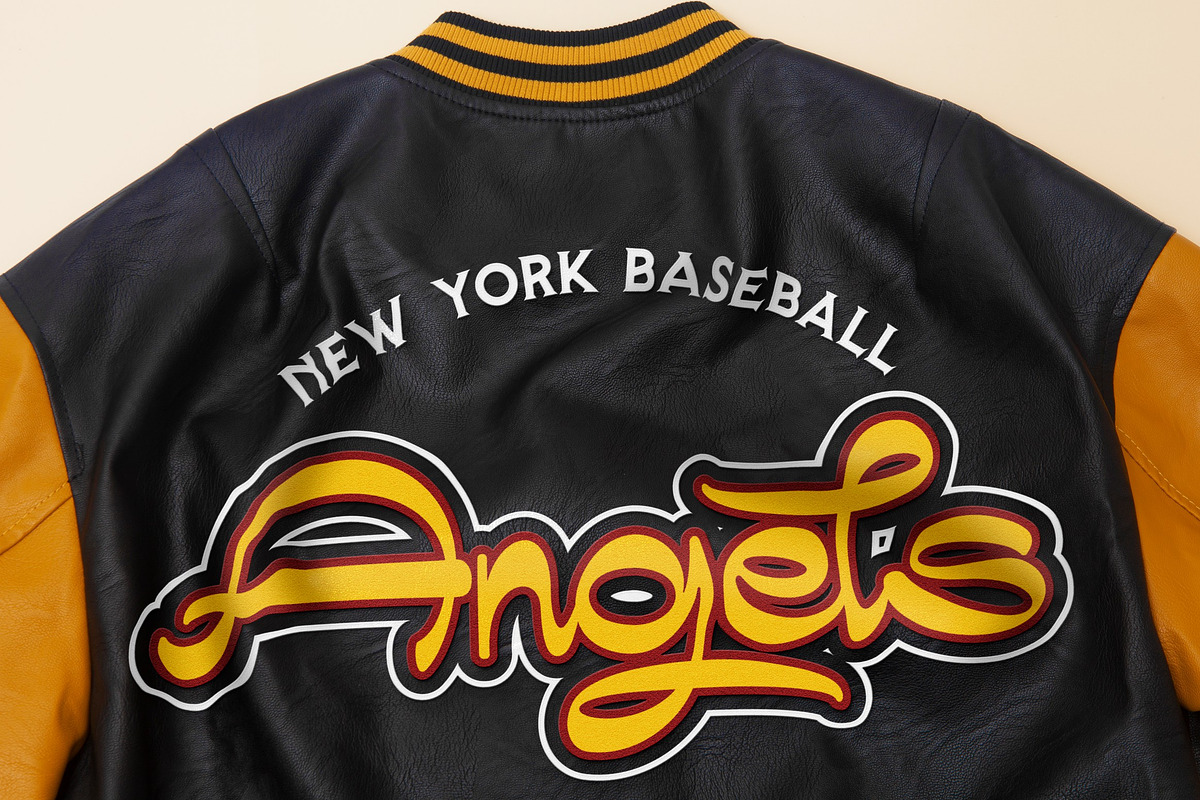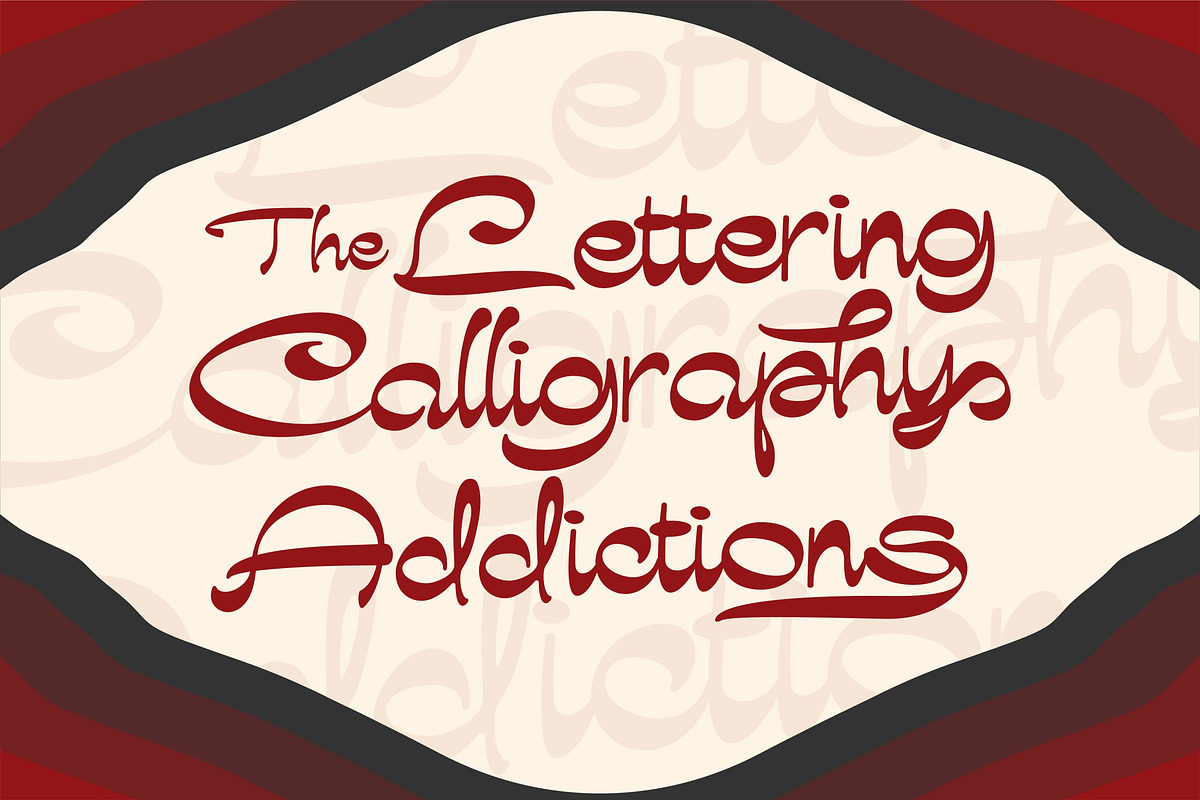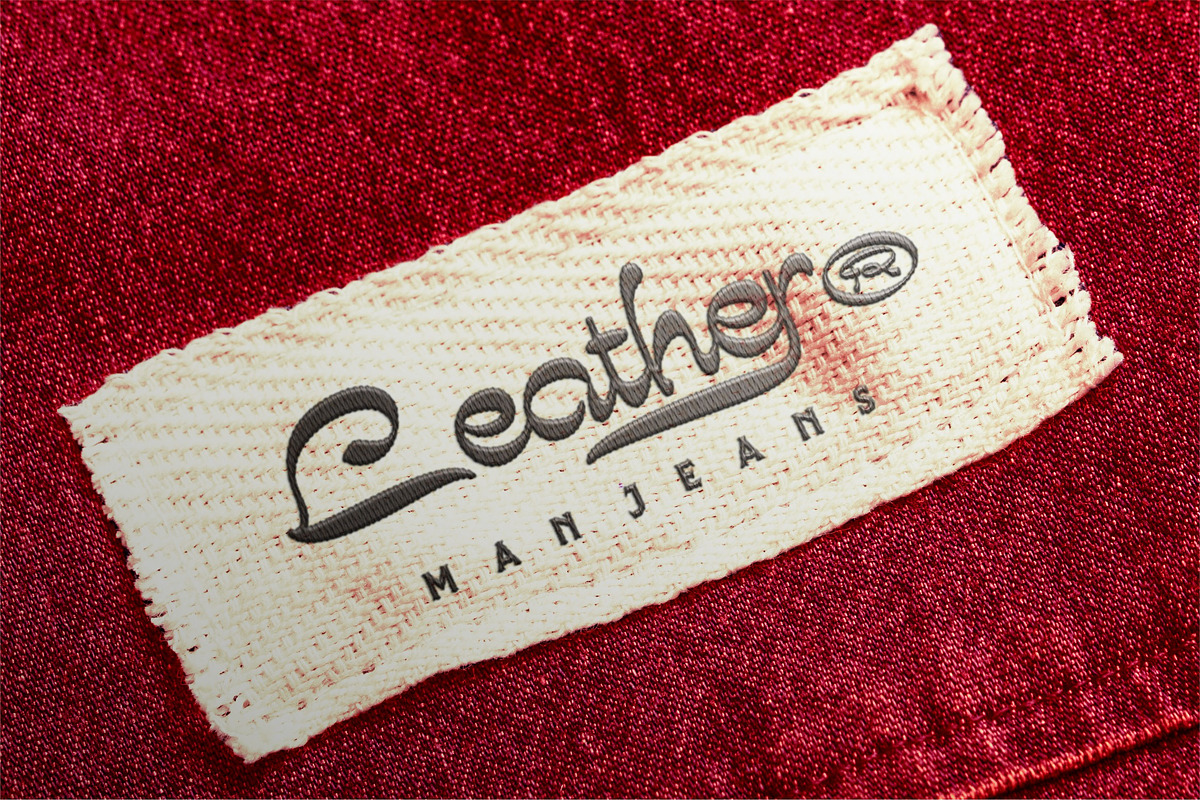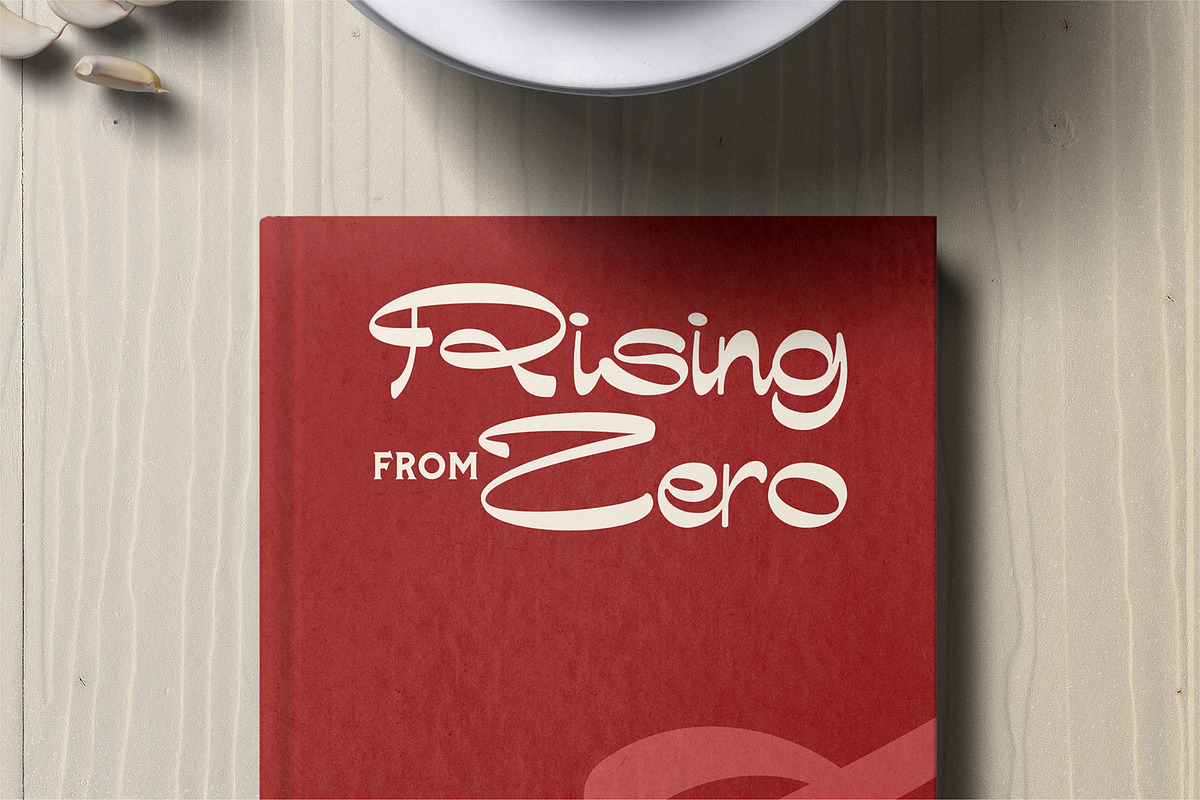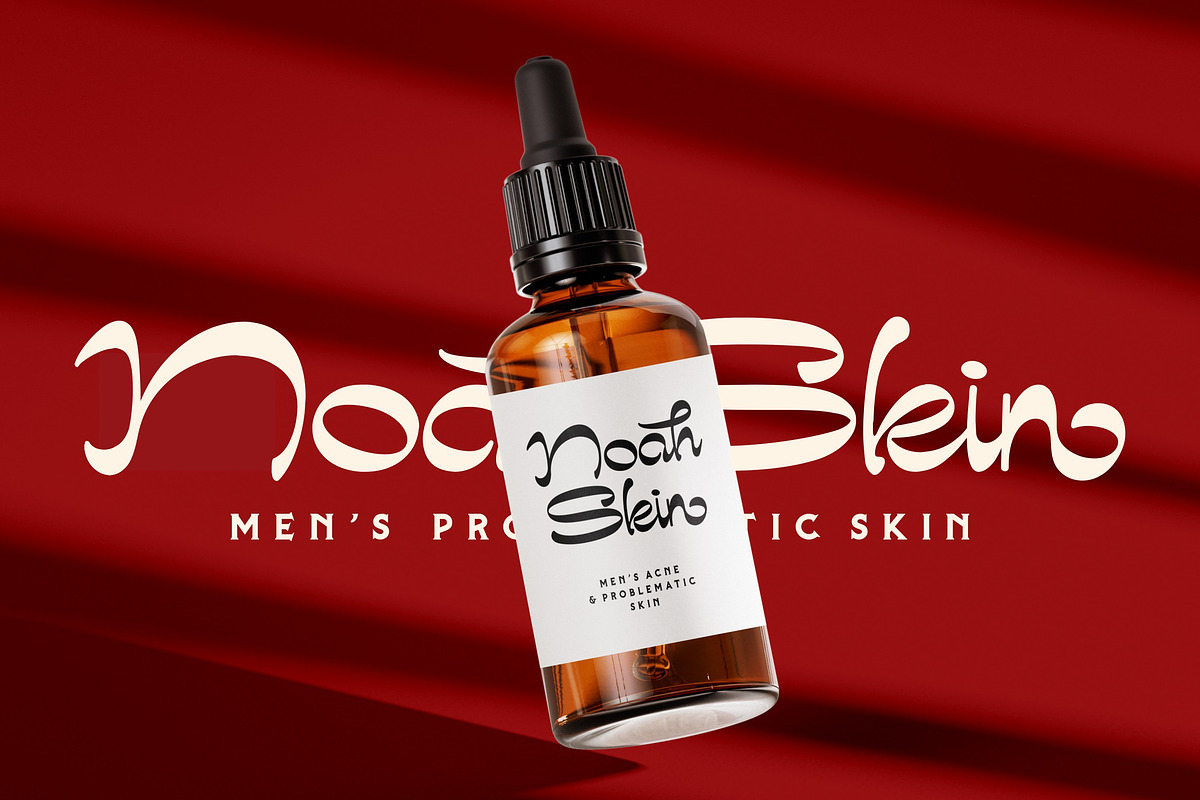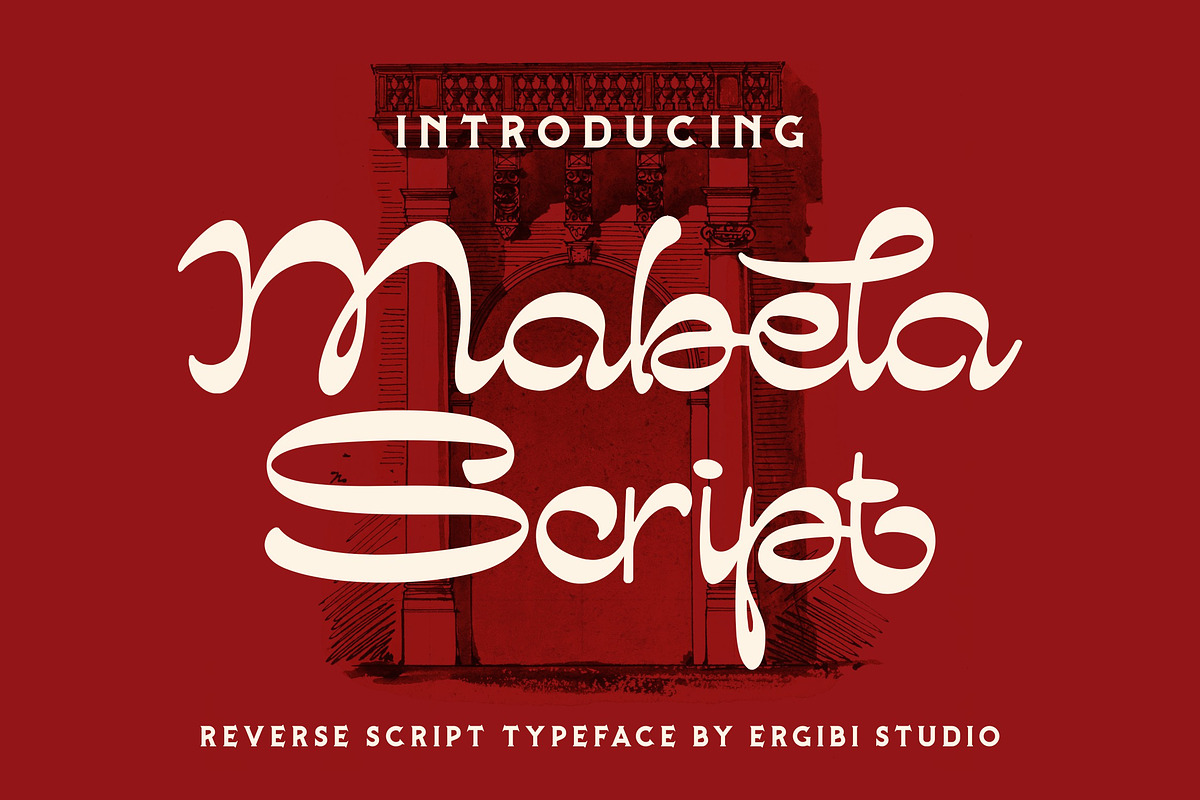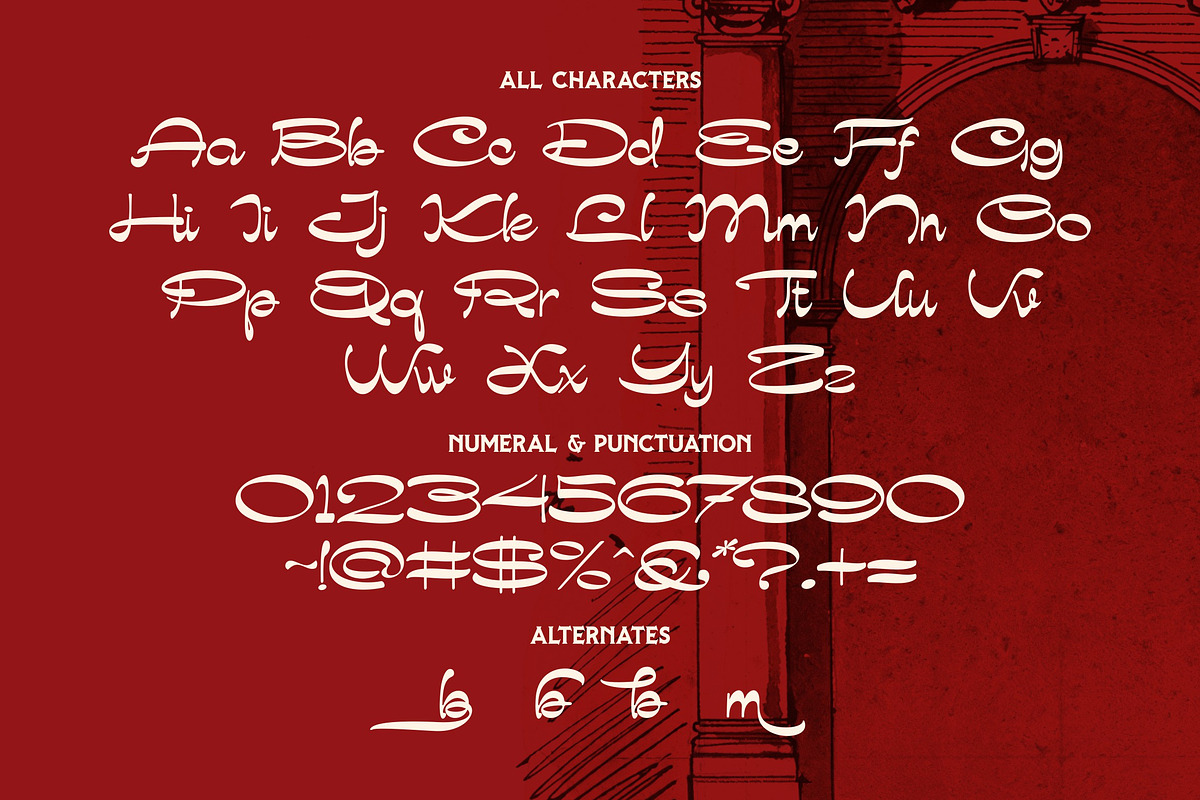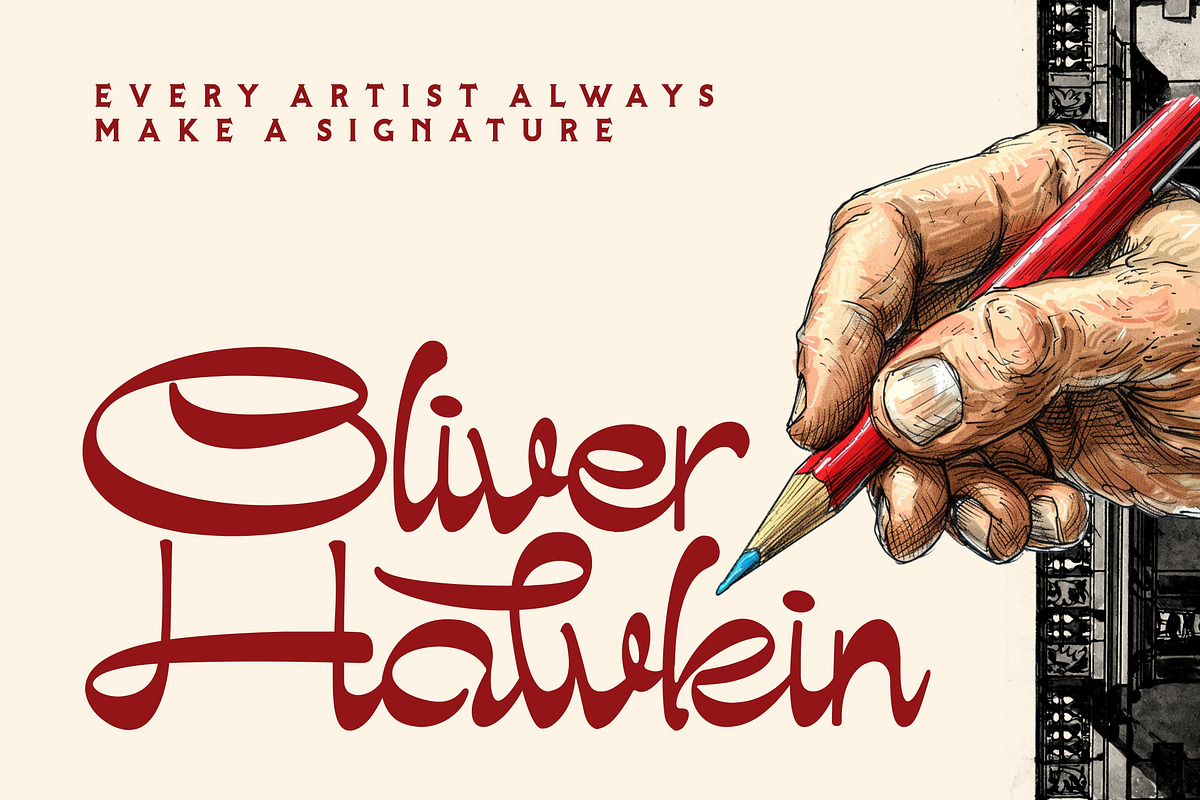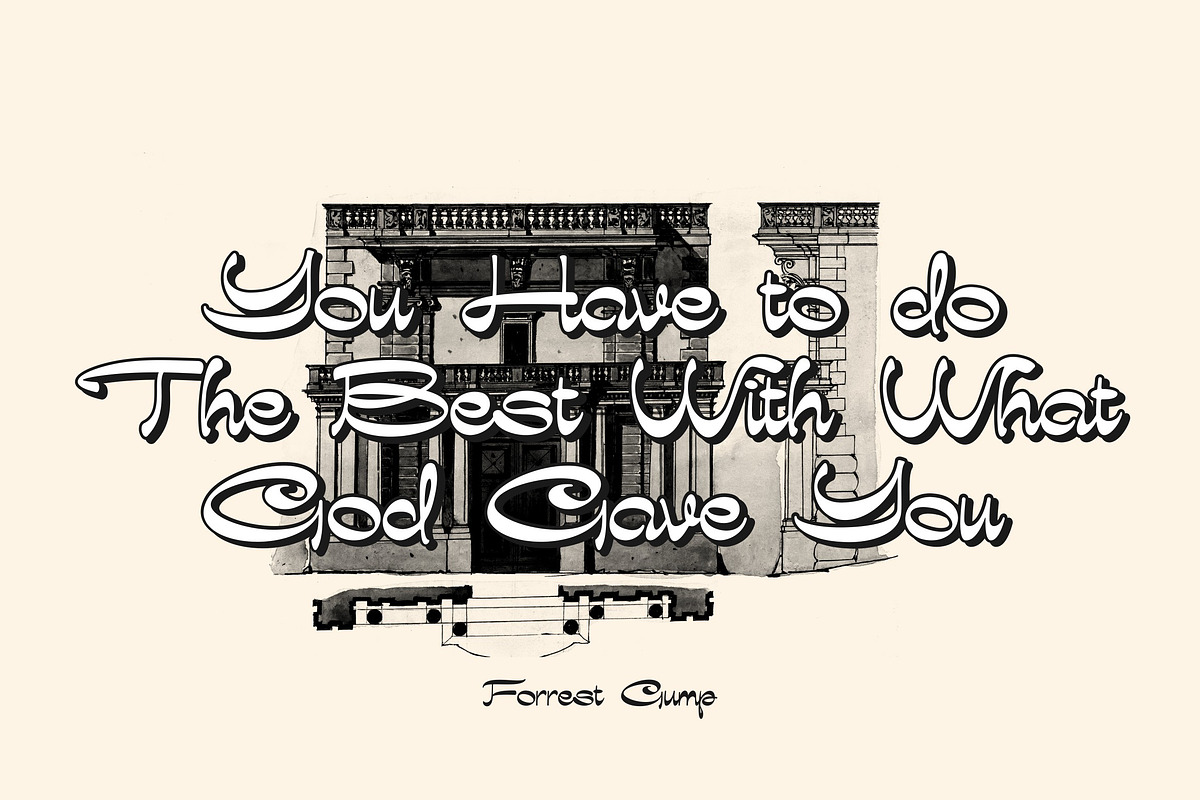
Mabela - Reverse Script
Mabela Script is a sophisticated blend of classic and modern design, exuding elegance and a premium feel. Featuring smooth strokes, dynamic curves, and meticulous details, this font is crafted to elevate any creative project. Perfect for luxury branding, logos, wedding invitations, product packaging, and more, Mabela Script delivers a unique and captivating aesthetic. Its harmonious balance between beauty and professionalism ensures that every letter stands out, making your designs truly unforgettable.